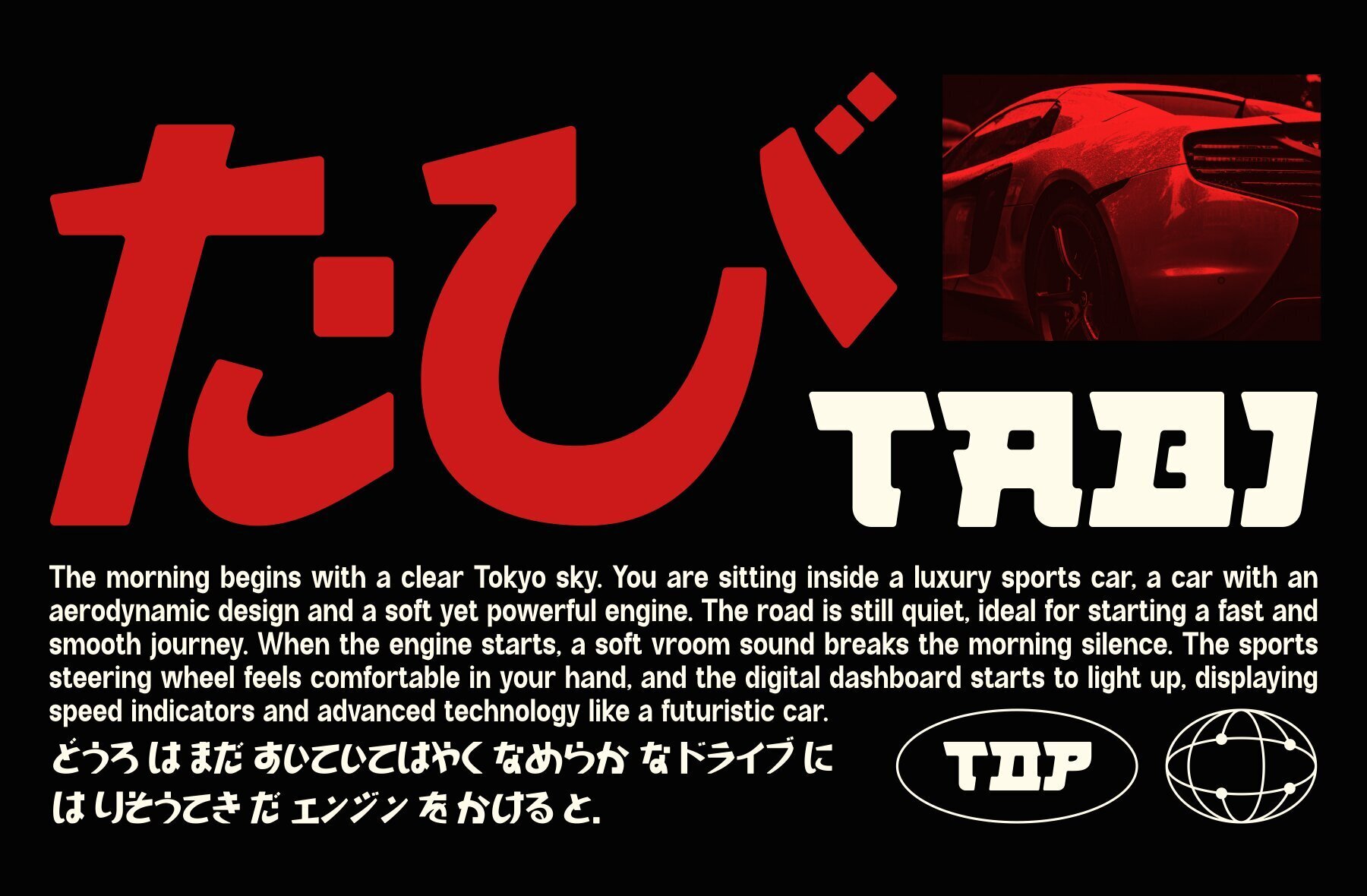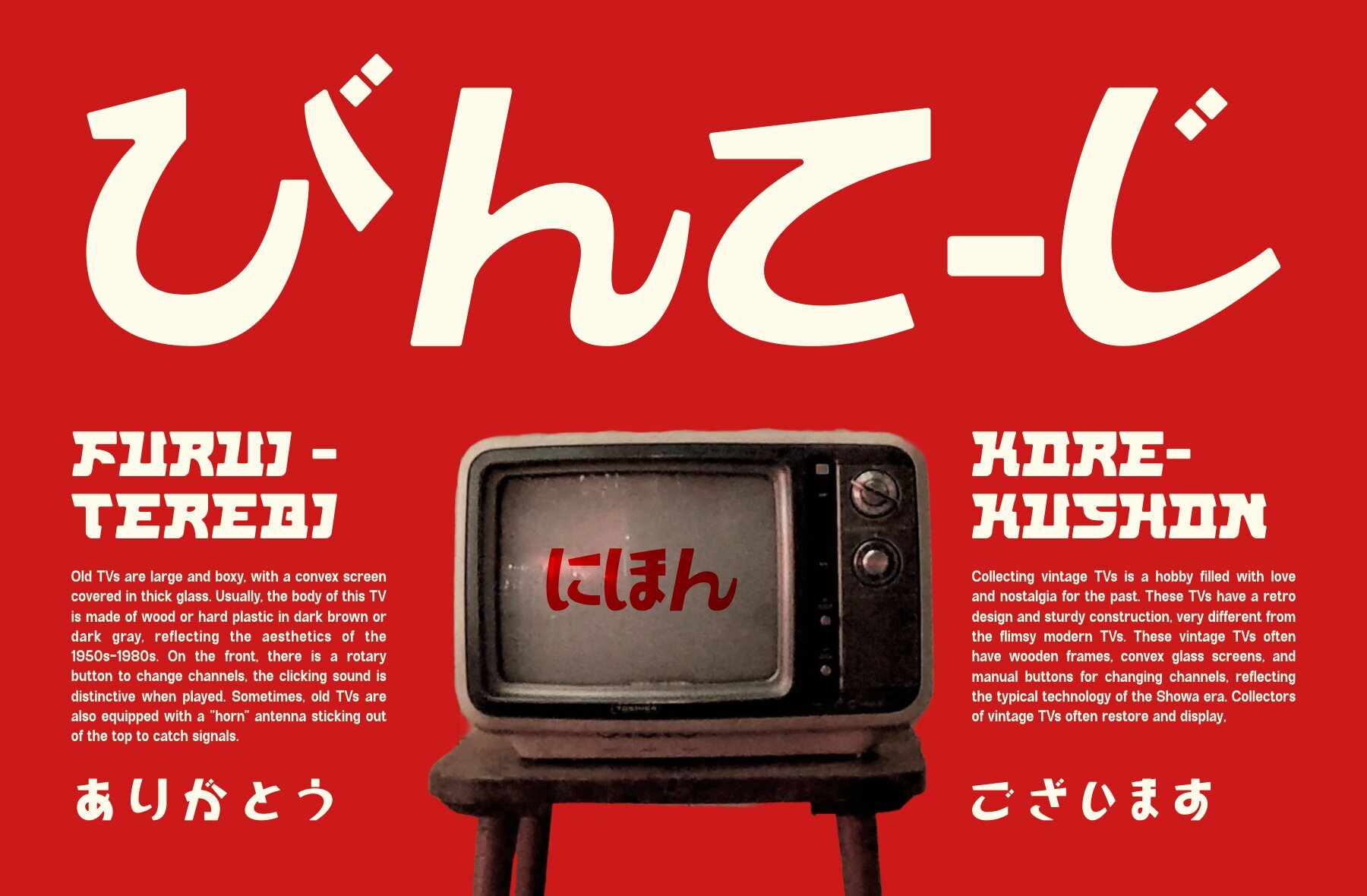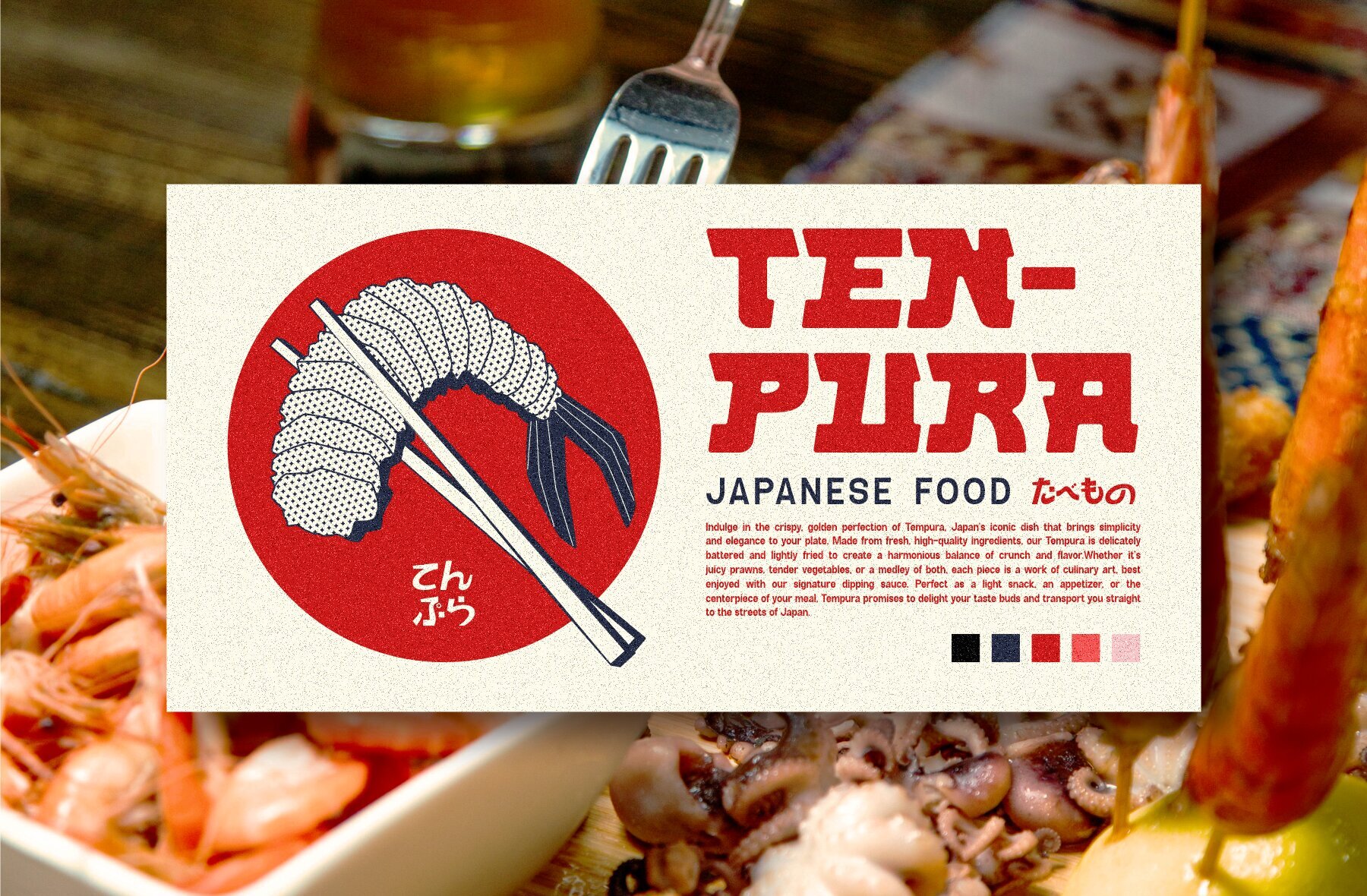
Kyouka
Kyouka is a decorative Japanese block-style font that merges traditional aesthetics with a contemporary flair. Designed with bold, geometric strokes, each character stands out with a distinctive presence, optimal for impactful designs. The unique feature of Kyouka is its subtly rounded edges on each stroke, which softens its boldness and provides a refined finish. This blend of rigidity and elegance makes Kyouka adaptable for numerous design applications.
With full support for Hiragana and Katakana, Kyouka ensures smooth integration into Japanese typography projects. Ideal for posters, packaging, and digital content, Kyouka offers a strong yet approachable Japanese-inspired look, perfect for diverse creative projects.